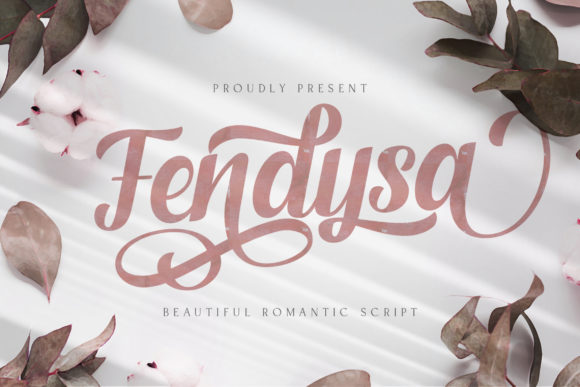
Fendysa Font Review: A Handwritten Script with Charming Versatility
I remember the moment clearly. I had just opened a fresh brand board for a small boutique project— a local shop that sold handmade candles, curated ceramics, and linen goods. The client wanted something that felt personal, warm, and approachable but still refined enough to sit on premium packaging. I had tested a few script fonts earlier that morning, but they either leaned too formal or too playful. Then I dropped a wordmark using Fendysa onto the logo draft. That was the moment everything clicked.
Fendysa is described as a cute and casual handwritten font with an incredibly friendly feel, and after spending real time with it in a branding workflow, I can confirm that description holds up. But there is more beneath that first impression. This font carries a level of polish that makes it genuinely useful for commercial design work, not just for decorative one-offs. In this review, I will walk through how Fendysa performs across logo design, packaging, social media, web headers, and print, and share honest observations from someone who has tested it under realistic project conditions.
What Makes Fendysa Stand Out as a Handwritten Script
The first thing you notice about Fendysa is its natural rhythm. The letterforms feel drawn by hand rather than constructed digitally. The strokes have a slight bounce, and the baseline wanders just enough to feel human without looking messy. It sits comfortably in the Script Amp category, offering a balance between structured calligraphy and relaxed handwriting.
What elevates Fendysa beyond a simple casual font is its collection of gorgeous swashes and ligatures. These are not afterthoughts. The swashes are integrated into several uppercase and lowercase letters, giving you the ability to add flourishes exactly where they enhance the composition. The ligatures help certain letter pairs flow more smoothly, which is critical when you are setting a wordmark or a short phrase. In my logo draft for the boutique, the swash on the capital letter opened up the wordmark nicely, and the ligature between two adjacent lowercase letters prevented the clutter that often plagues handwritten scripts at larger sizes.
Fendysa also includes multiple stylistic alternates for key letters. This is a practical feature for branding because it lets you customize the look of a word without switching fonts. You can choose a more restrained letterform for a clean label or a swashed version for a decorative accent. Having these options within one typeface simplifies the design process and keeps your file sizes manageable.
Testing Fendysa in a Real Branding Workflow
I placed Fendysa through a typical project cycle that included a logo concept, a brand board, a packaging mockup, a business card layout, a website header, and an Instagram post. Here is what I observed at each stage.
Logo Design and Wordmarks. Fendysa handles short to medium-length words very well. The letter spacing is generous enough to keep characters readable, and the swashes add personality without overwhelming the word shape. For the boutique logo, I used Fendysa as the primary logotype and paired it with a simple geometric symbol. The font held its own at both large scale on the packaging mockup and smaller scale on the business card. If you are designing a logo for a café, a skincare line, a handmade shop, or a creative studio, Fendysa offers a friendly but confident presence.
Brand Board and Visual Identity. On a brand board, Fendysa functions well as a display font for headings and accent phrases. I used it for the brand name, the tagline, and short descriptive words like "handmade" and "slow." It brought a cohesive warmth to the board. However, I would not recommend using Fendysa for long blocks of text or body copy. The casual handwriting style, while charming, becomes difficult to read at smaller sizes or in dense paragraphs. Keep it for headlines, logos, short phrases, and decorative elements.
Packaging Design and Product Labels. This is where Fendysa really shines. On a candle label mockup, the font sat beautifully against a cream backdrop with subtle foil effect. The swashes added a touch of elegance that elevated the product from simple to special. For a skincare product label, I tested Fendysa on a small round label, and the alternates helped me adjust letterforms to fit the circular layout. The font also works well on hang tags, jar labels, and box inserts. Just be mindful of size—keep it above 14 points for print to maintain legibility.
Social Media Graphics. Fendysa performs well on Instagram posts and stories where you need a friendly headline or a call-to-action phrase. It pairs nicely with clean sans serif fonts for supporting text. I used it for a series of product launch posts, and the font gave each graphic a consistent, handmade feel. One thing to note: on mobile screens, very small text in Fendysa may lose clarity, so use it primarily for headlines and larger quotes.
Web Design and Website Headers. For a homepage hero section, Fendysa works as a welcoming headline font, especially for lifestyle brands, blogs, or boutique storefronts. I tested it in a simple HTML mockup, and the font loaded cleanly. If you plan to use Fendysa on the web, make sure to check the webfont version or embed it properly. The font retains its character at standard heading sizes (24px and above). Below that, readability drops, so reserve it for headers and short banners.